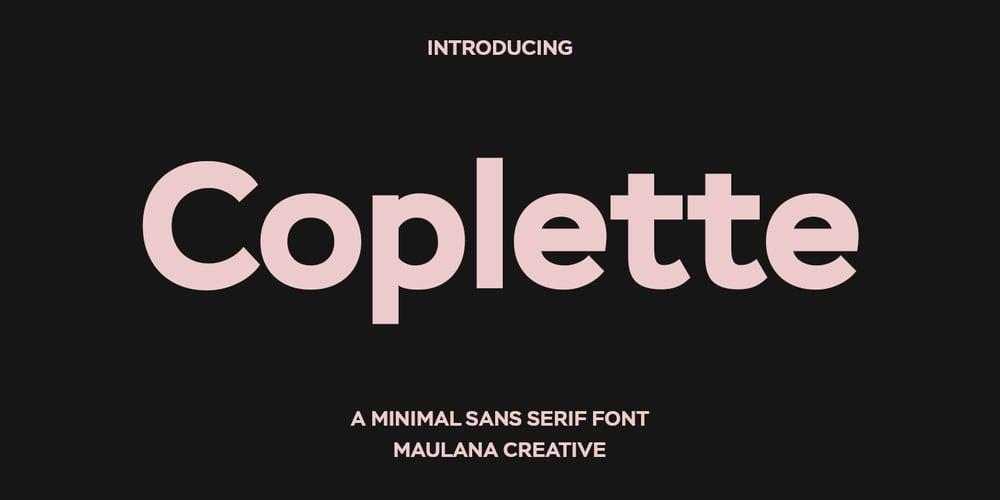
Coplette Font Family was designed by Gilang Maulana and published by Maulana Creative. Coplette contains 1 styles and family package options. Coplette is a minimal semi geomtric shape sans serif font. With medium low contrast stroke, fun character with a bit of ligatures and alternates. To give you an extra creative work. Coplette font support multilingual more than 100+ language. This font is good for logo design, Social media, Movie Titles, Books Titles, a short text even a long text letter and good for your secondary text font with sans or serif. Make a stunning work with Coplette font.